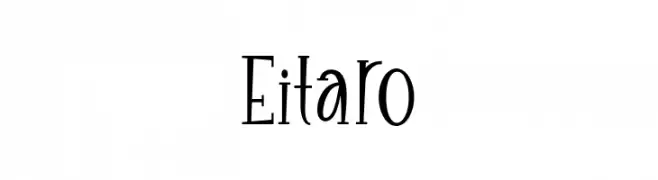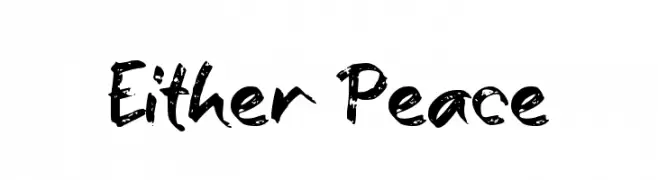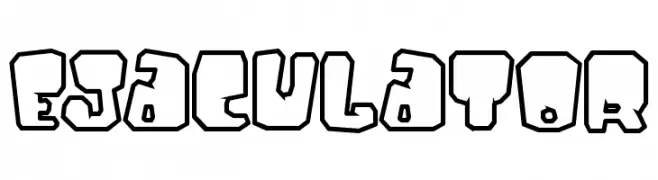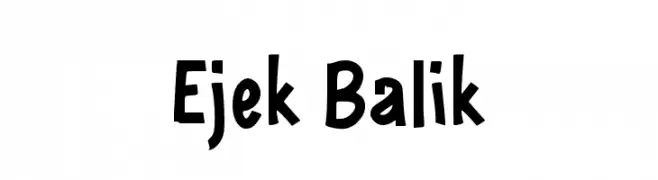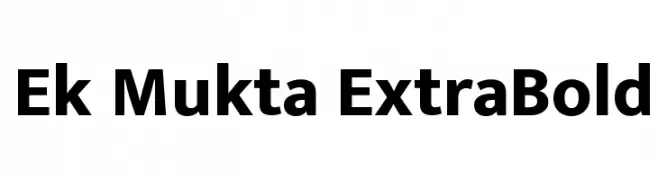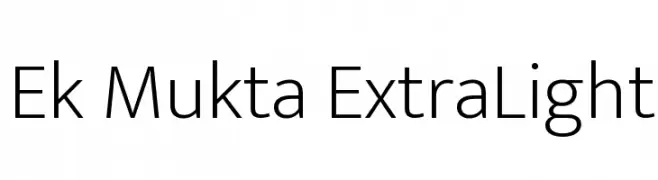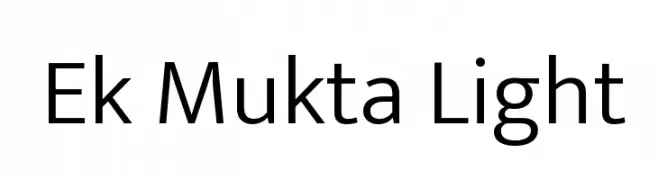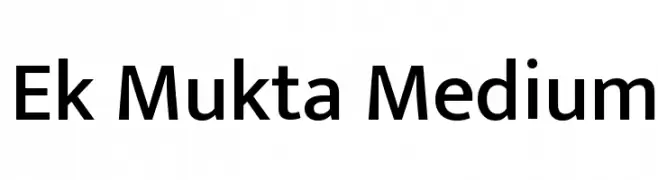
A playful, whimsical font with tall, narrow letterforms and a slight slant.
A bold, textured font with a hand-painted, expressive style.
A bold, geometric font with a three-dimensional outline and angular shapes.
A playful, hand-drawn font with a whimsical and bold style.
A bold, modern sans-serif font with clean lines and strong readability.